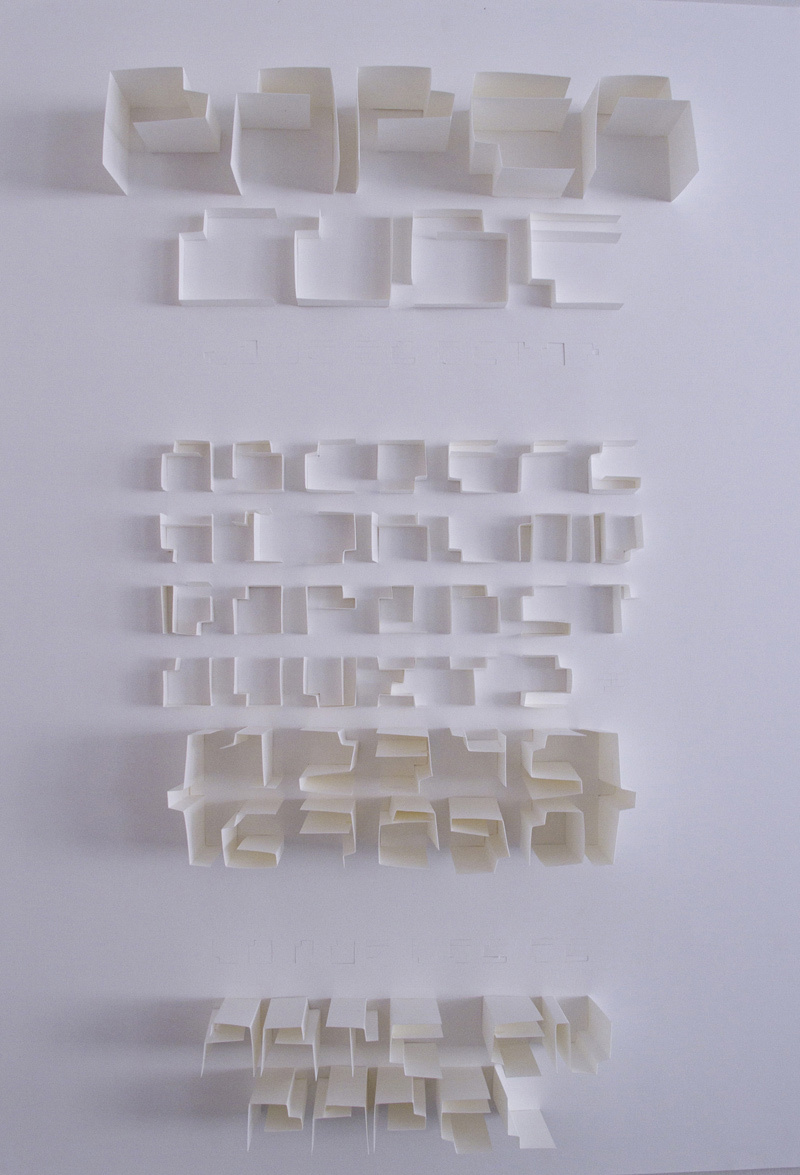
Paper Cube Cube stands out as a futuristic foray into the realm of typography, masterfully crafted by Gilberto Moya. This display font from the Paper Cube family exudes a bold 3D presence, with its extra-bold weight and expanded width commanding attention. Its techno style is reminiscent of digital landscapes and modern architecture, making it an impeccable choice for projects that aim to make a strong visual statement.
The aesthetic appeal of Paper Cube Cube lies in its geometric precision and the illusion of depth it creates on any flat surface. The interplay of light and shadow within its characters adds a layer of sophistication to its design, enhancing the overall visual experience.
Ideal for impactful headers, eye-catching logos, and innovative advertising campaigns, Paper Cube Cube's assertive style is versatile enough to adapt to various creative needs while maintaining its distinctive techno vibe. Whether used in print or digital media, this font is poised to elevate any project with its unique character and stylish flair.
Paper Cube Cube